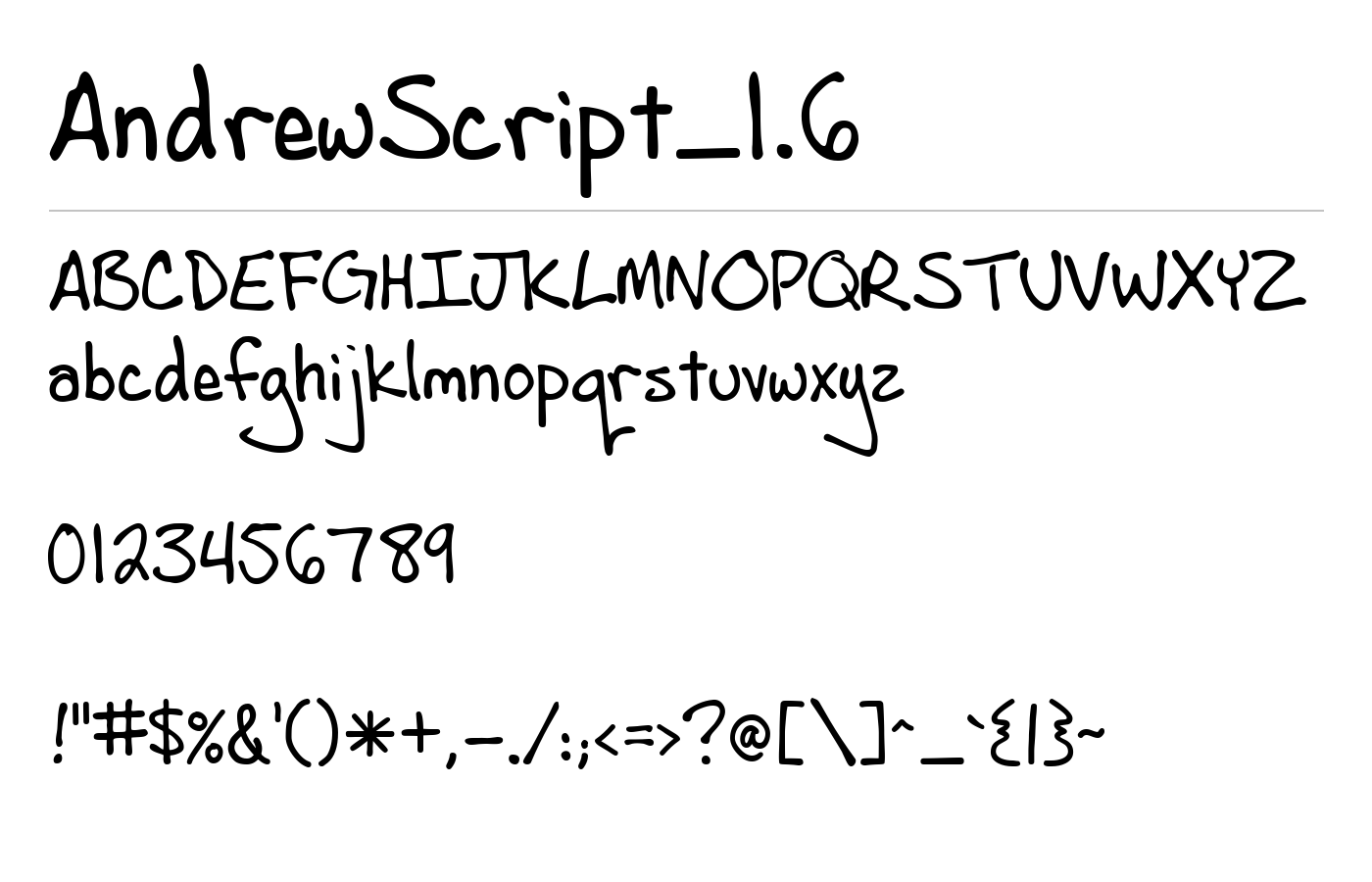
AndrewScript_1.6 is a casual, handwritten sans serif font featuring a playful and slightly irregular style that mimics natural penmanship. Its light to regular weight with open, airy letterforms and informal strokes makes it perfect for creative, fun, and approachable designs, such as informal invitations, children’s projects, and personal branding. This font works well when a relaxed, friendly, and authentic touch is desired.
AndrewScript_1.6 Font
About AndrewScript_1.6 Font